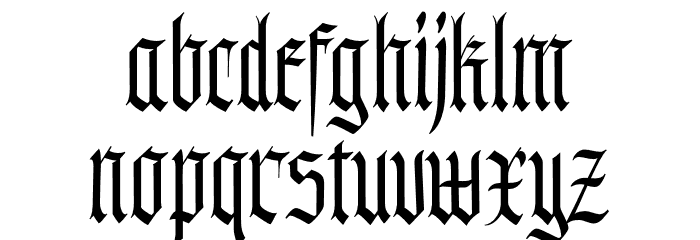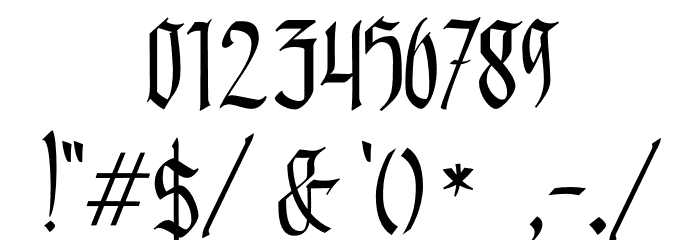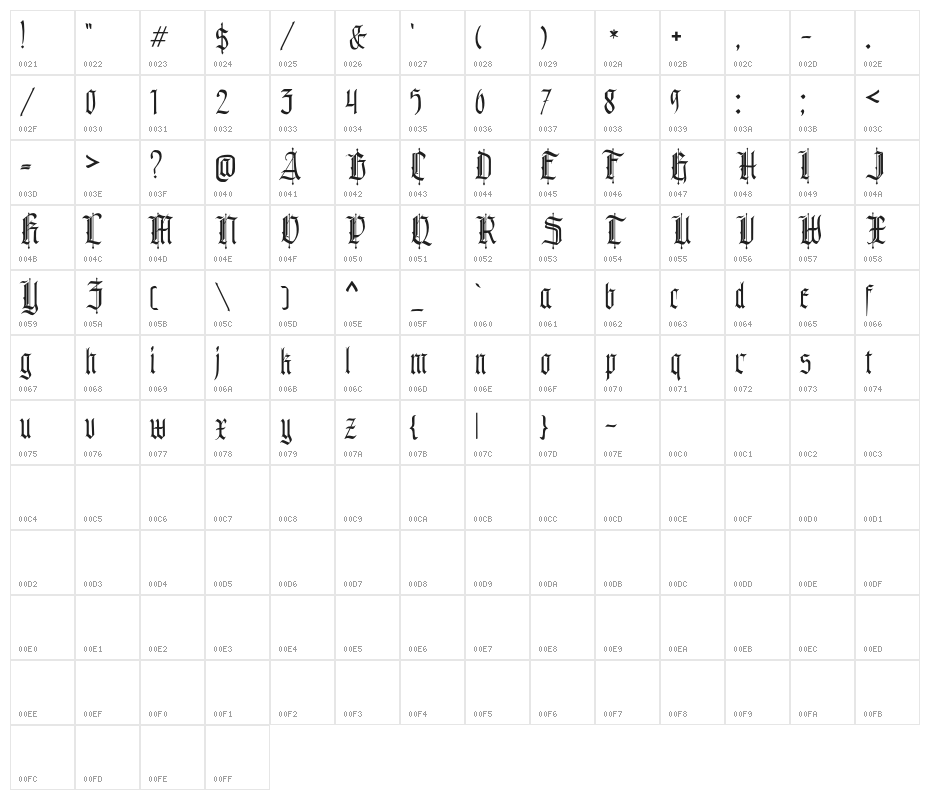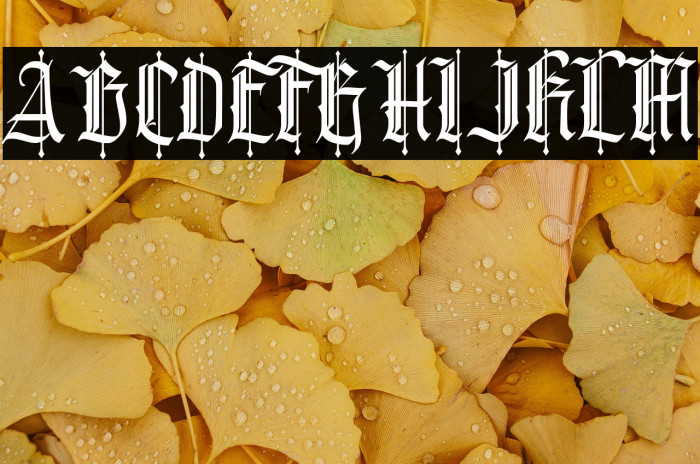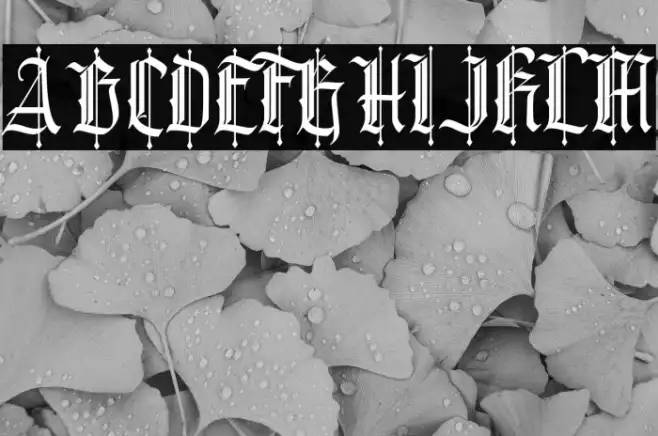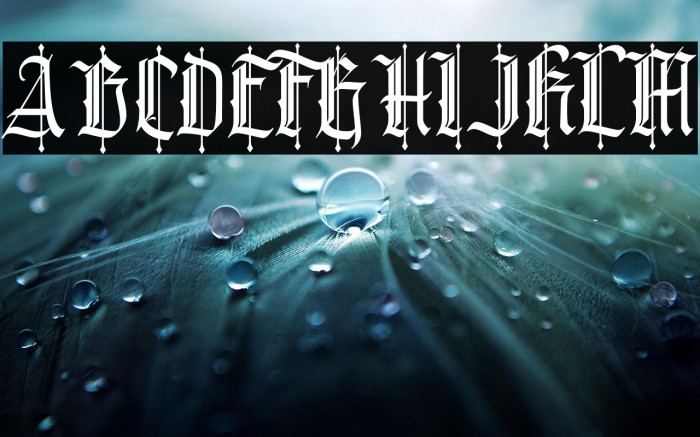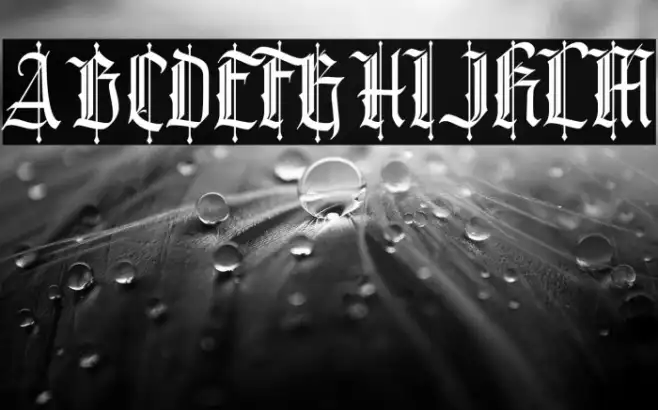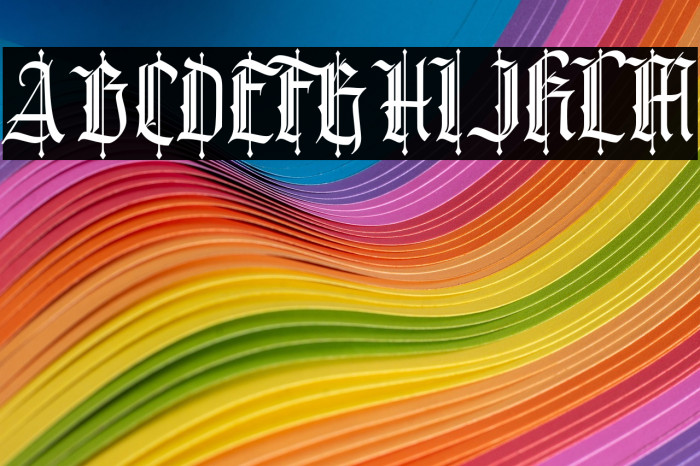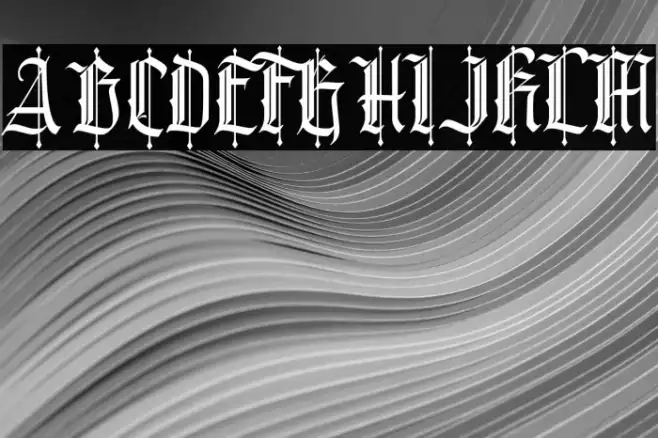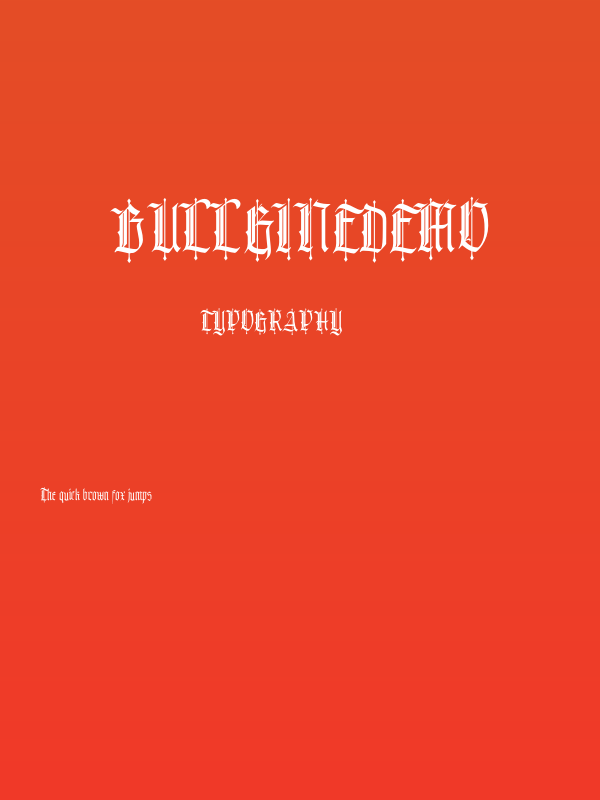
BullgineDEMO Font
This font exhibits a classic blackletter style, characterized by its intricate and ornate design. The uppercase letters are bold and angular, with sharp serifs and a distinct medieval aesthetic. The lowercase letters maintain the same decorative flair, with elongated strokes and a consistent weight throughout. Numbers and special characters are designed to match the overall gothic theme, making them suitable for creating a cohesive look. The font's high contrast between thick and thin strokes adds to its dramatic appearance, making it ideal for projects that require a historical or traditional touch.
A bold, blackletter style font with high contrast and ornate details.
- Font: BullgineDEMO
- Proposed Projects: Ideal for historical documents, gothic-themed designs, book covers, and event invitations.
- Category: Blackletter
- Overall Style: Vintage
- Use Case: Logos, Headlines, Decorative text